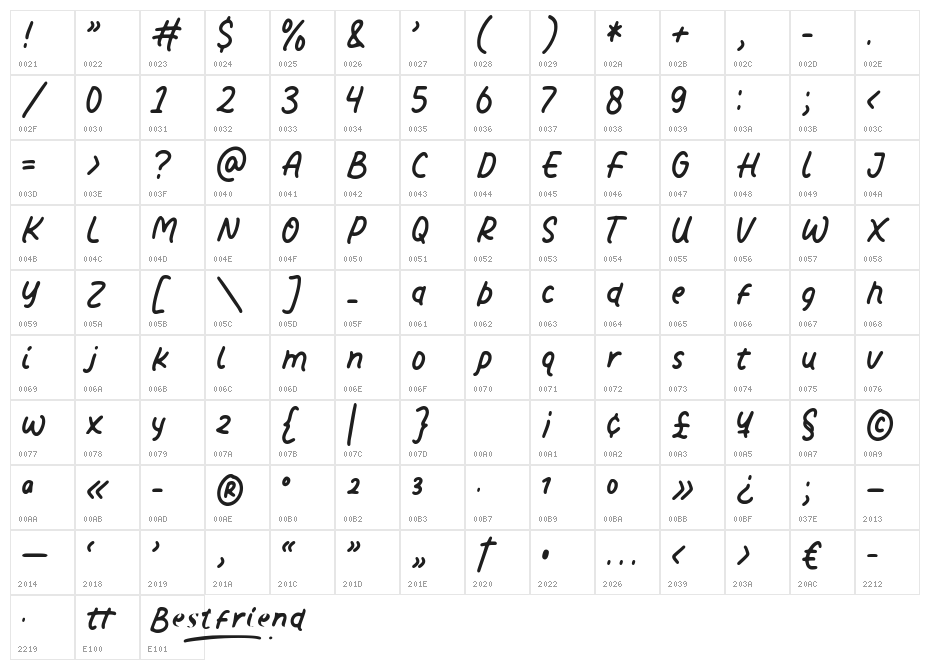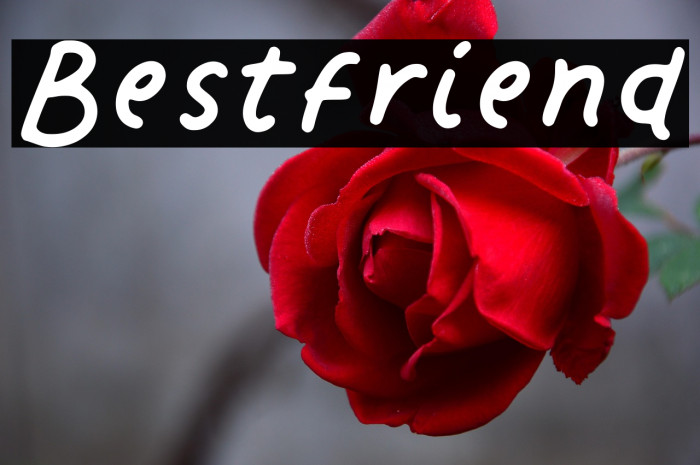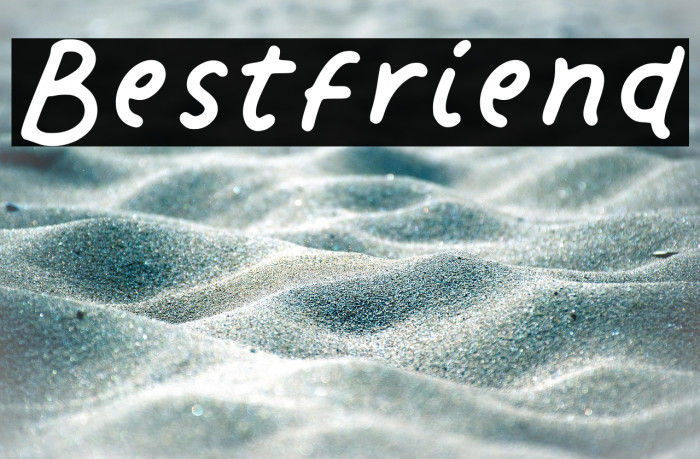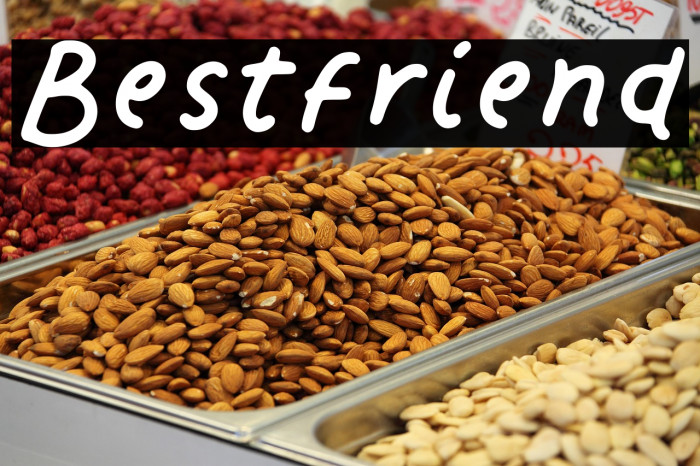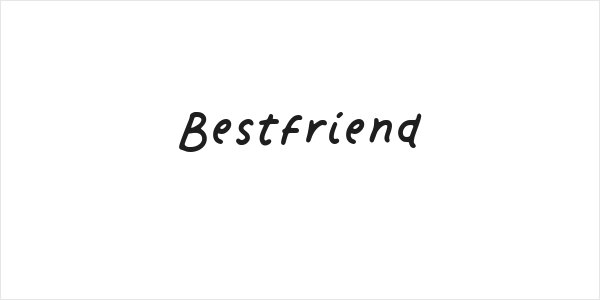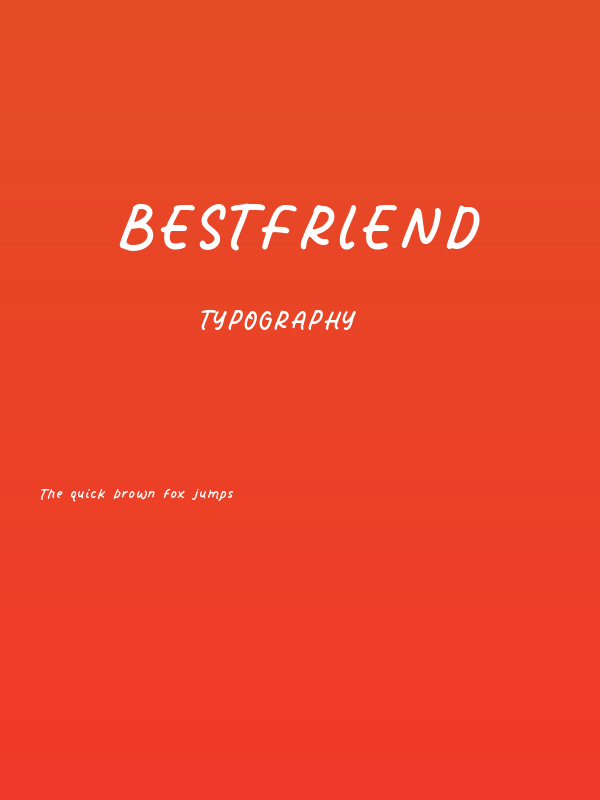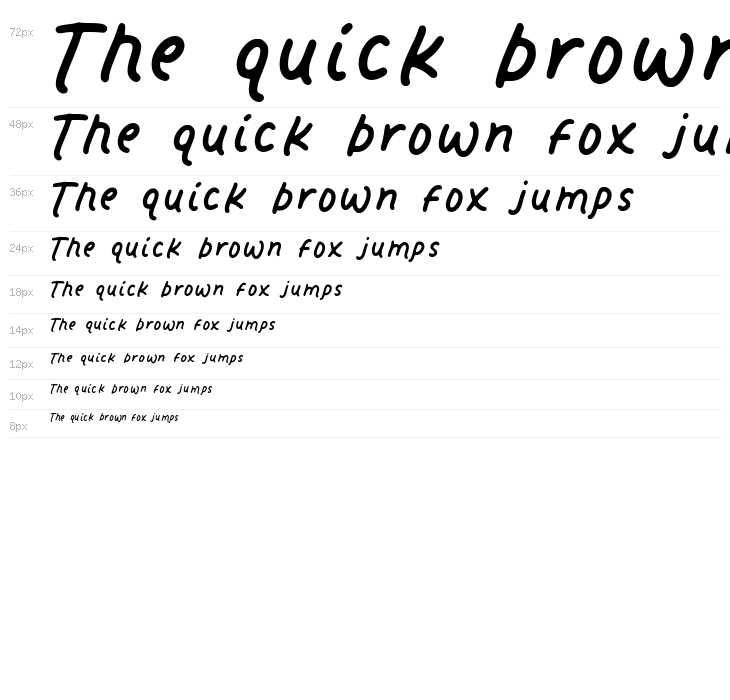
Bestfriend Font
Bestfriend Description
This font features a playful and casual handwritten style, characterized by smooth, flowing curves and a slightly informal appearance. The letters are well-rounded and maintain a consistent stroke width, giving it a friendly and approachable feel. The uppercase and lowercase letters are distinct yet harmonious, with a slight slant that adds to the relaxed vibe. Numbers and special characters are crafted with the same attention to detail, ensuring a cohesive look across all text elements. This font is perfect for projects that require a personal touch or a sense of warmth and friendliness.
| Use Case | Logos, Invitations, Social Media Graphics |
| Proposed Projects | Ideal for greeting cards, personal invitations, casual branding, and social media graphics. |